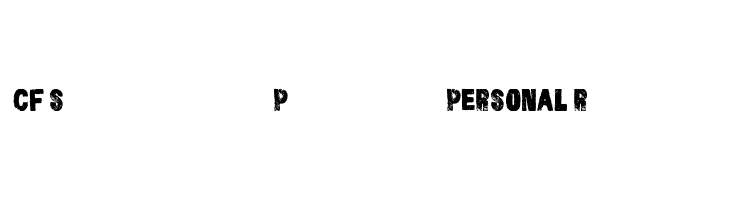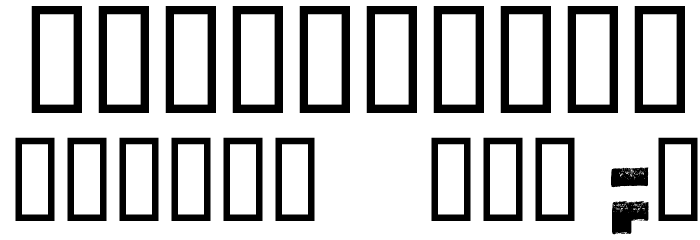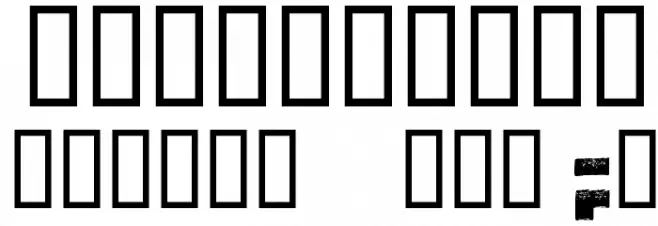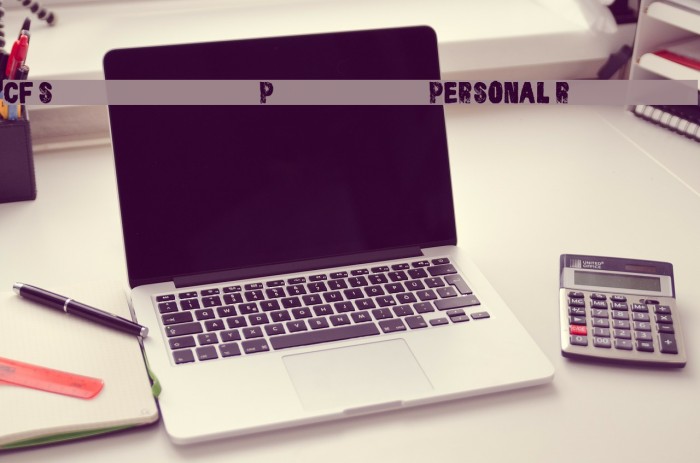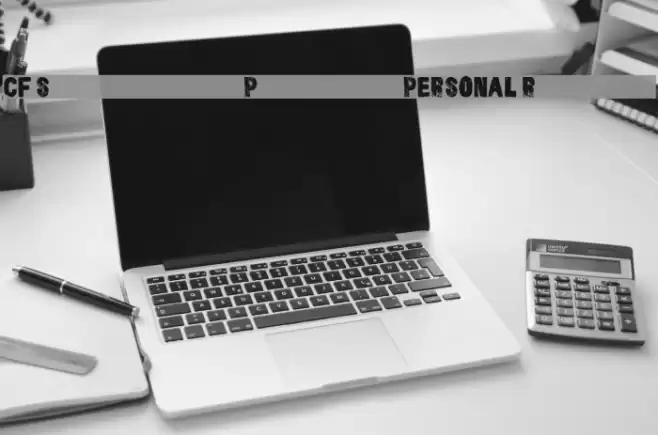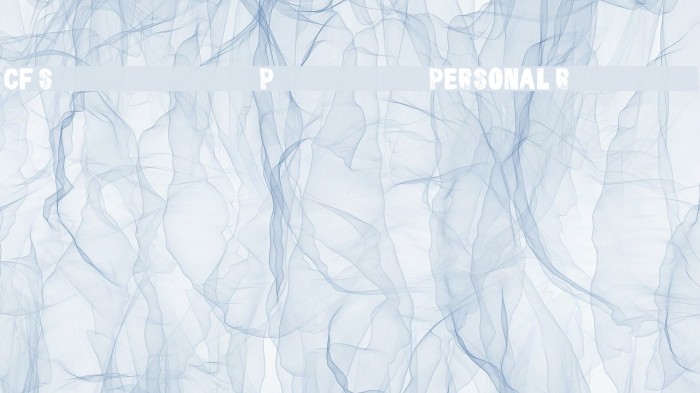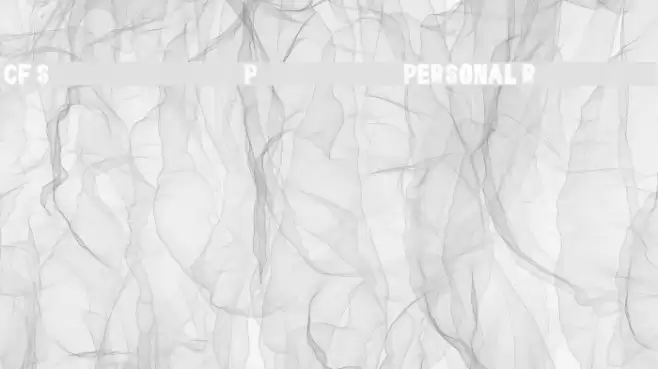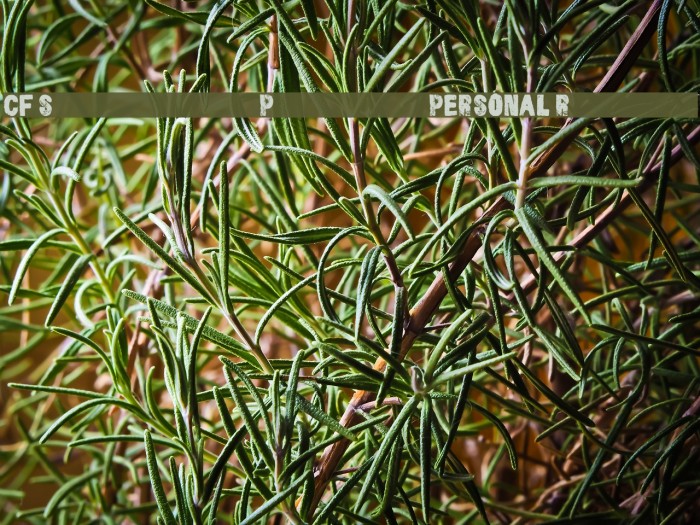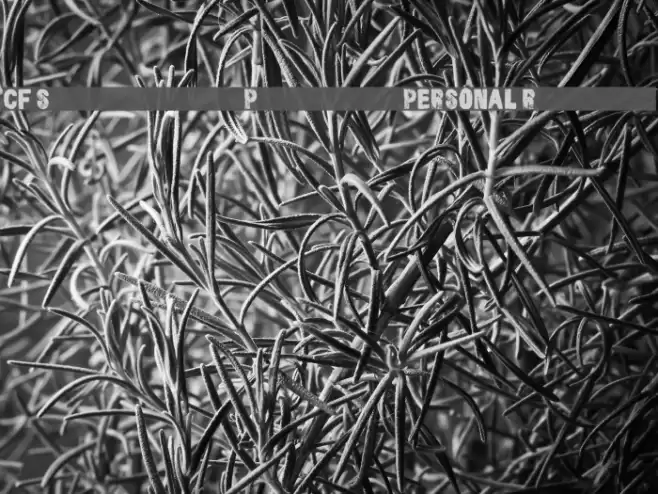
CF Snowboard Project PERSONAL Regular Font
CF Snowboard Project PERSONAL Regular Description
This font features a bold and rugged style, reminiscent of distressed or grunge aesthetics. The uppercase letters are designed with a textured, worn-out look, giving them a unique and edgy appearance. The characters are bold and impactful, making them suitable for attention-grabbing designs. The font lacks lowercase letters and numerals, focusing solely on uppercase characters. Its rough texture and bold presence make it ideal for projects that require a strong, rebellious, or adventurous vibe.
| Overall Style | Grunge, Edgy, Adventurous |
| Proposed Projects | Perfect for posters, album covers, skateboarding or snowboarding brand logos, and edgy apparel designs. |